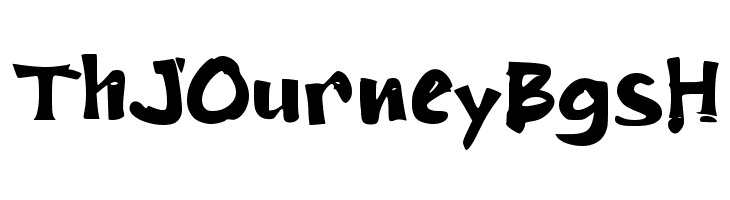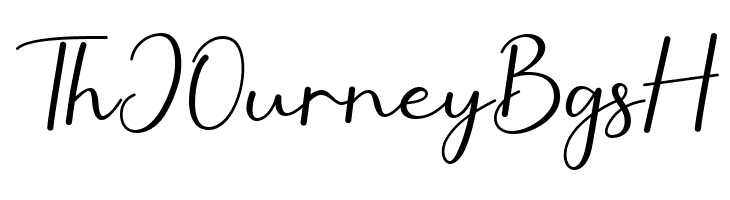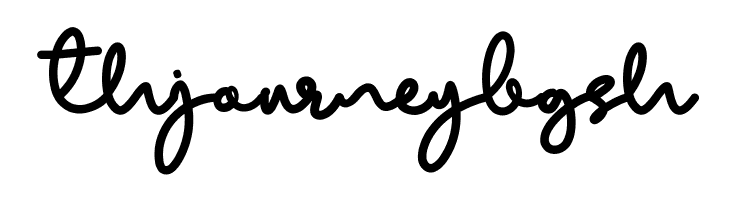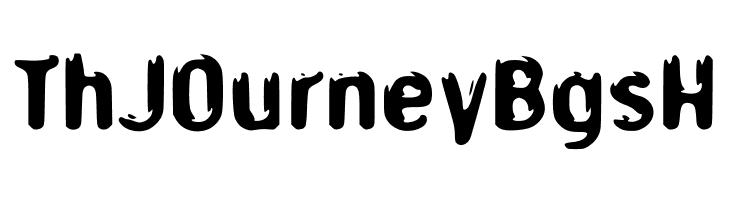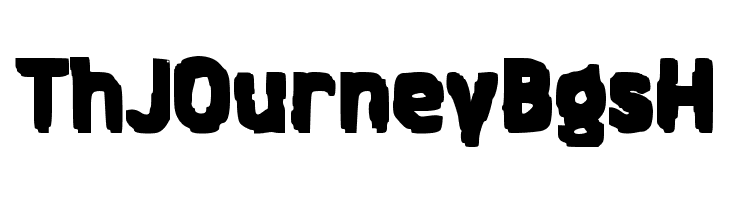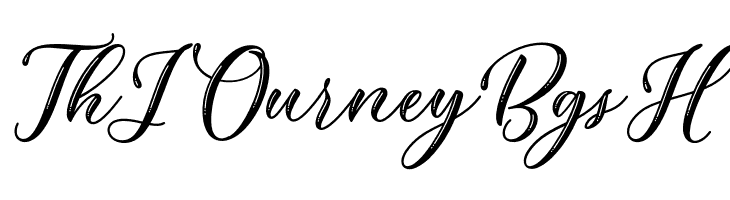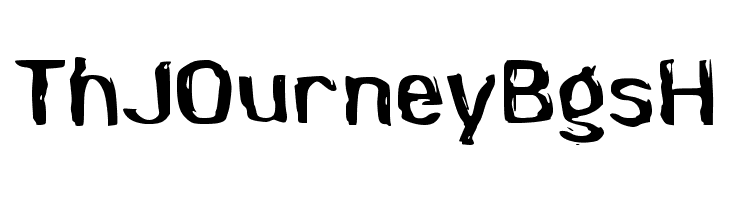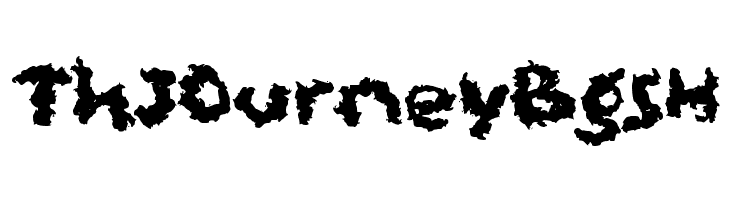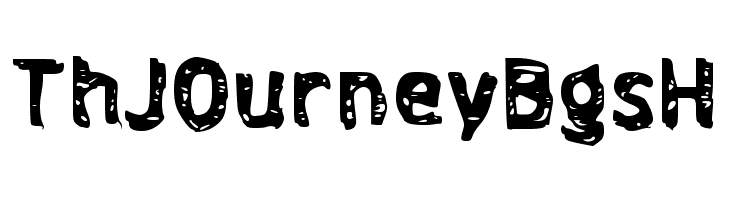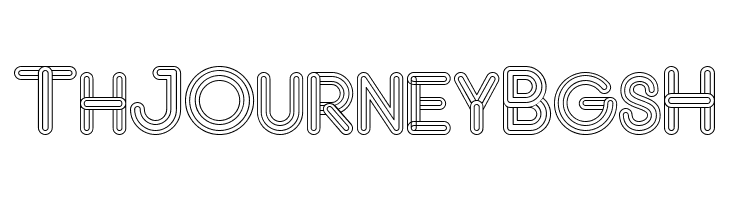
An elegant script font with flowing, cursive strokes and decorative flourishes.
A bold, hand-painted style font with an expressive and artistic appearance.
A playful and elegant handwritten script with charming embellishments.
A bold, geometric font with a layered outline style and modern aesthetic.
A bold, textured font with an organic, rugged appearance.
A bold, hand-painted style font with an expressive and artistic appearance.
A bold, playful font with a hand-drawn, irregular style.
A casual, playful handwritten font with smooth, flowing curves and connected letters.
A bold, playful font with a distressed, hand-crafted look.
A bold, playful, hand-drawn font with dynamic, irregular characters.